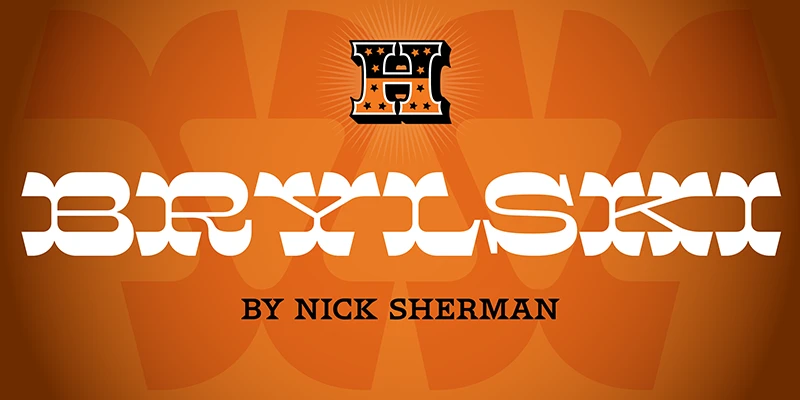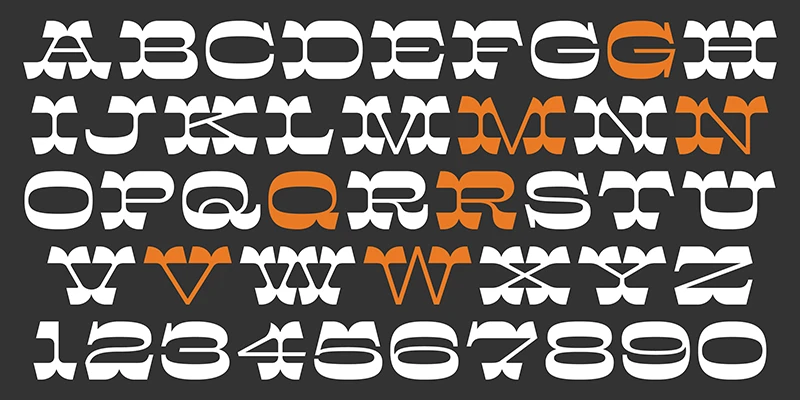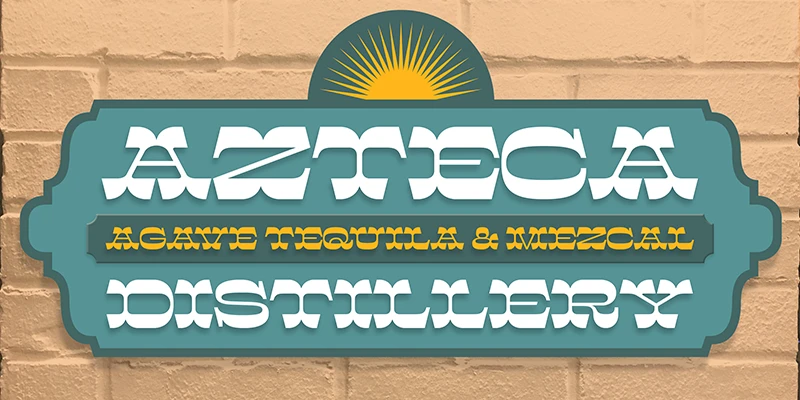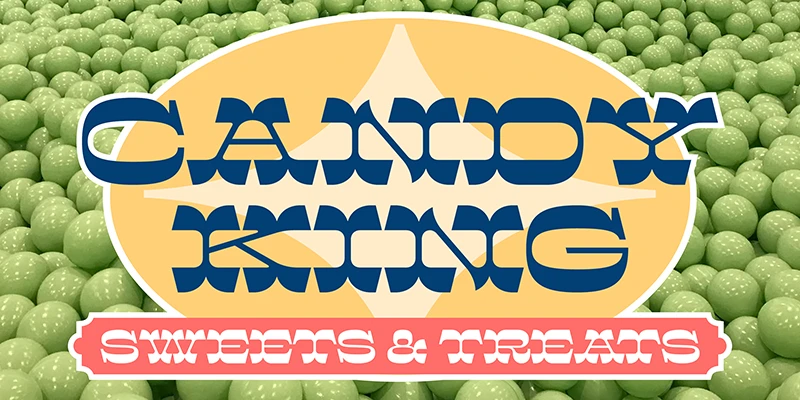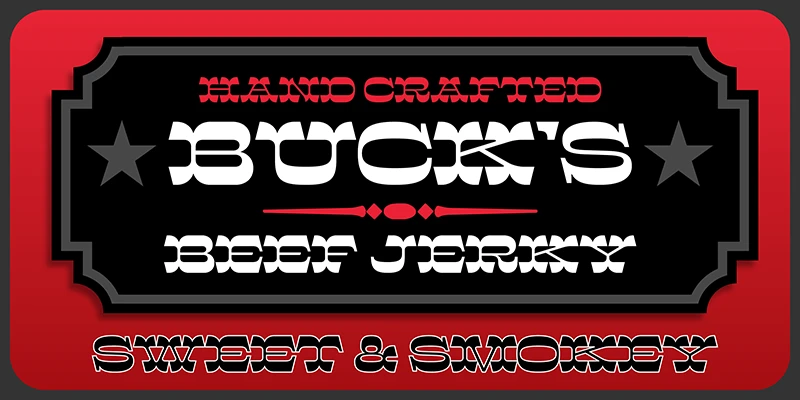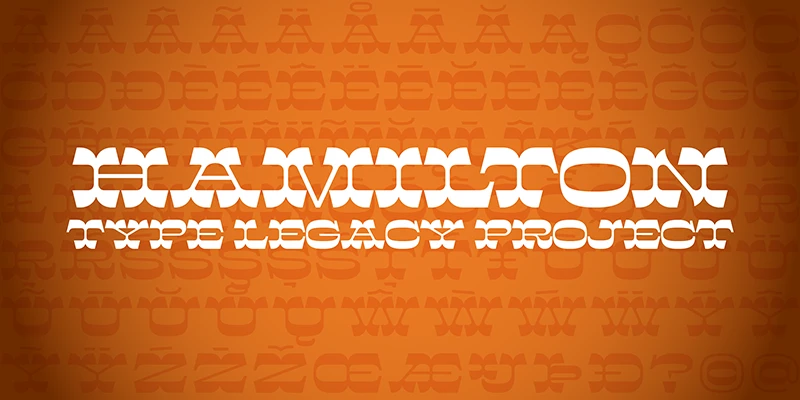
HWT Brylski is Nick Sherman’s blend of 19th-century typographic motifs. Named for type cutter and Hamilton Printing Museum volunteer Norb Brylski, it features bifurcated serifs, extended width, with bold tops and bottoms. The mansard sides give the hefty serifs a jaunty air, while the very thin middles showcase the weight they both hold and anchor. Made with an understanding of the era, clever decisions have been taken to incorporate more modern letterforms into the character set. Use it boldly!
Designed by Nick Sherman